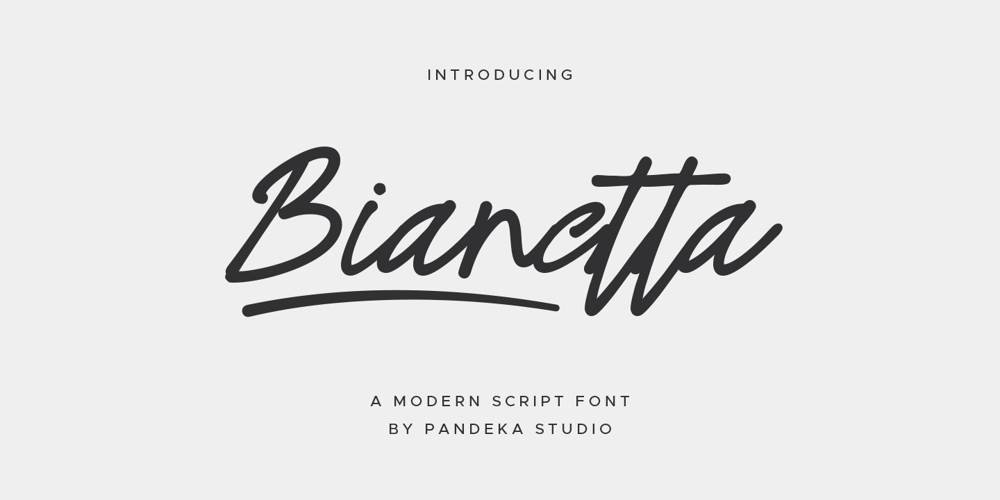
Bianetta
Bianetta font
Bianetta Font Family was designed by Sagara Nararya and published by Pandeka Studio. Bianetta contains 1 styles and family package options. Bianetta is a modern script font with elegant lettering and stylish calligraphy, designed to flow effortlessly like smooth handwriting. Featuring chic typography and graceful underline swashes (accessed via “_1” to “_7”), it adds sophistication to any project.Perfect for logo design, wedding invitations, branding, social media posts, product packaging, and timeless design, Bianetta brings a refined, artistic touch to your creations! ✨What’s Included: Main Files formats 1 Style: Regular Full Character Set: Uppercase, lowercase, numbers, symbols, and punctuation Easy to Use: Works on both PC & Mac Compatible with Adobe Illustrator, Photoshop, Microsoft Word, Canva, and more PUA Encoded: Fully accessible without additional software Language Support: Danish, English, Estonian, Filipino, Finnish, French, Friulian, Galician, German, Gusii, Indonesian, Irish, Italian, Luxembourgish, Norwegian Bokmål, Norwegian Nynorsk, Nyankole, Oromo, Portuguese, Romansh, Rombo, Spanish, Swedish, Swiss-German, Uzbek (Latin)Modern Script Font Elegant Lettering Stylish Calligraphy Smooth Handwriting Chic Typography Timeless DesignThank you and happy designing!Pandeka Studio